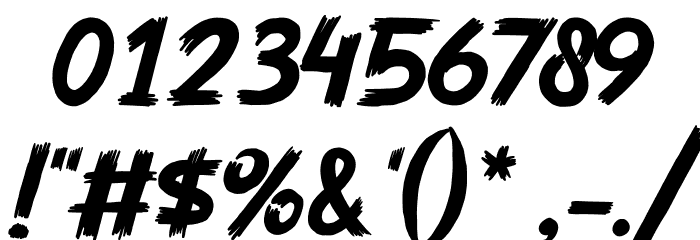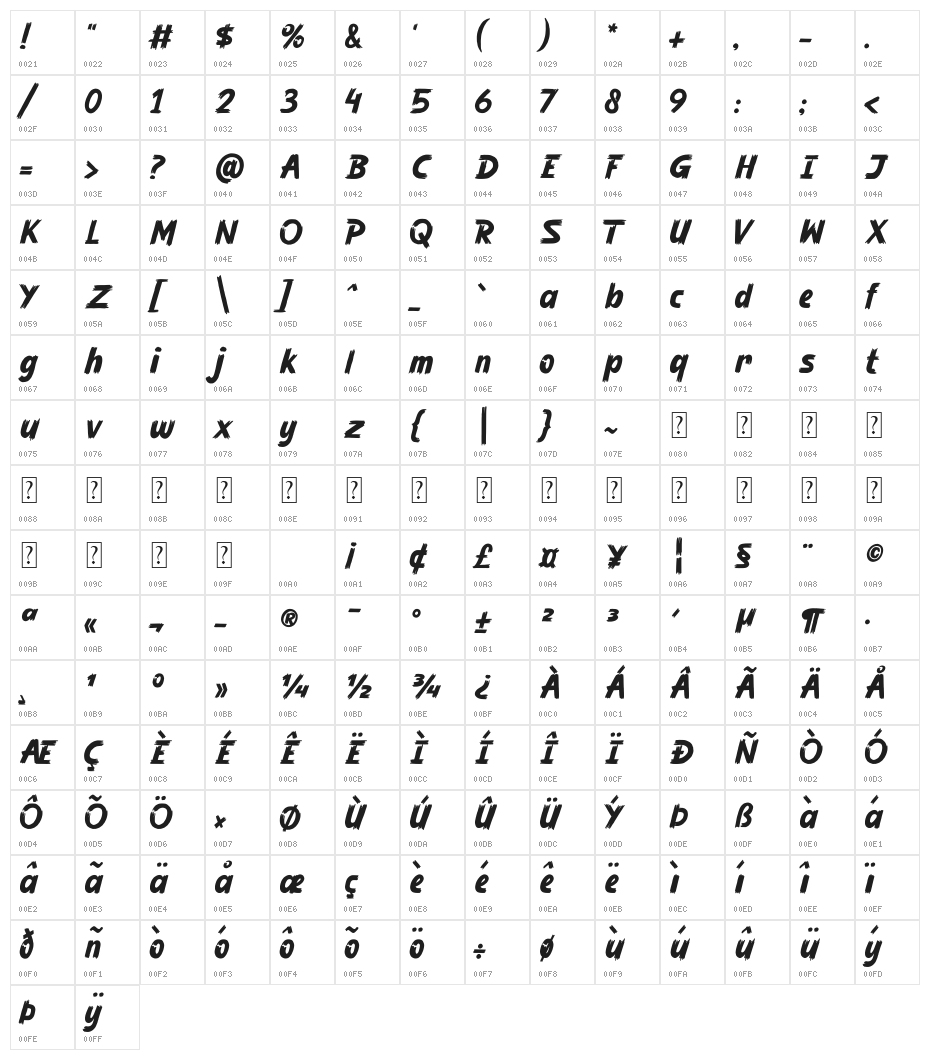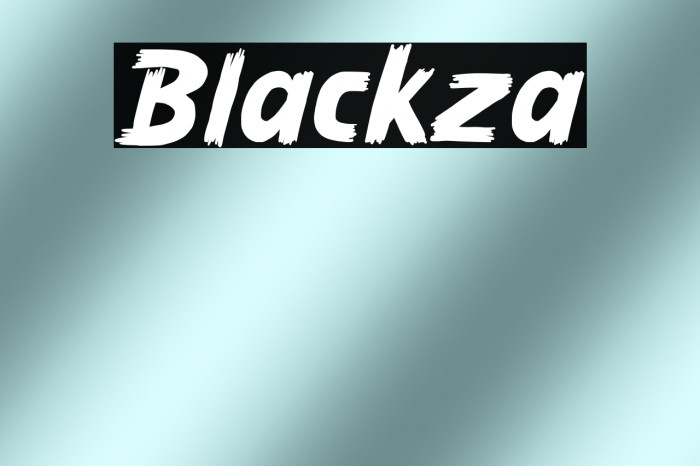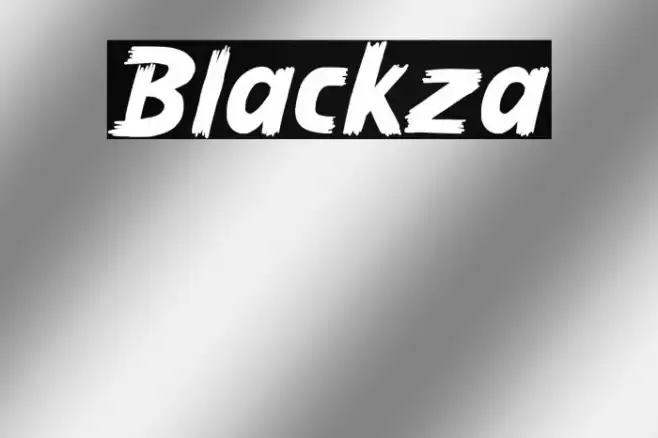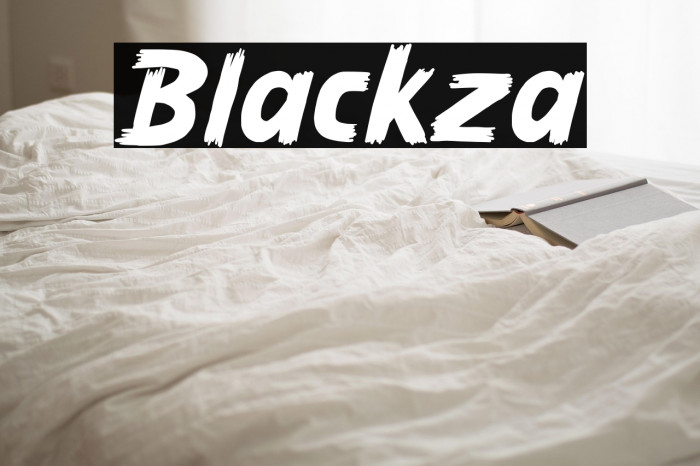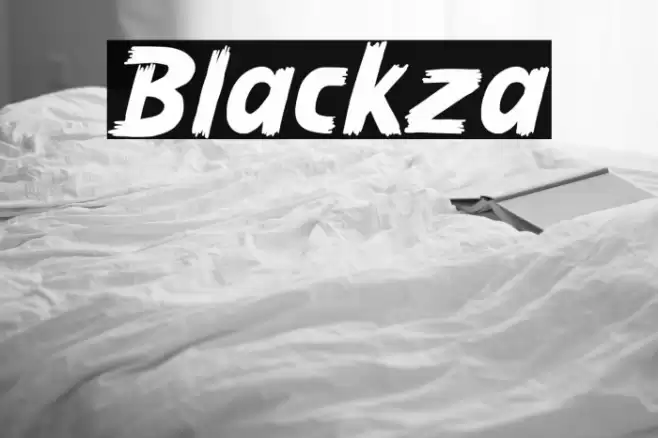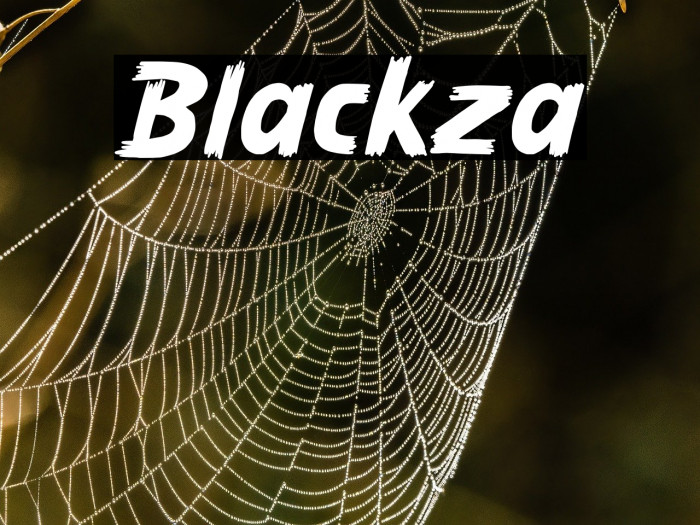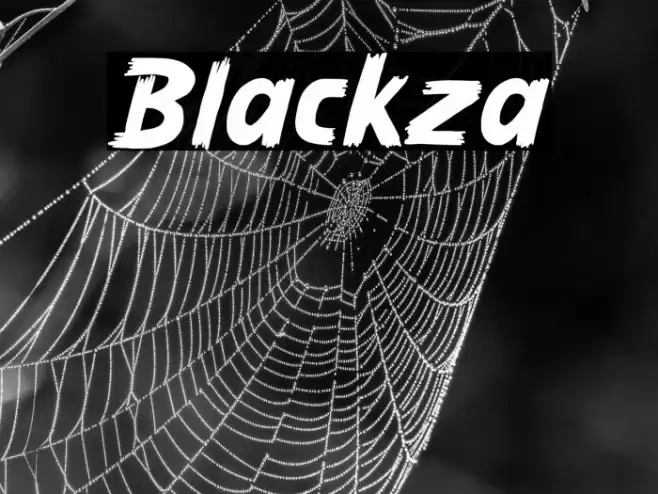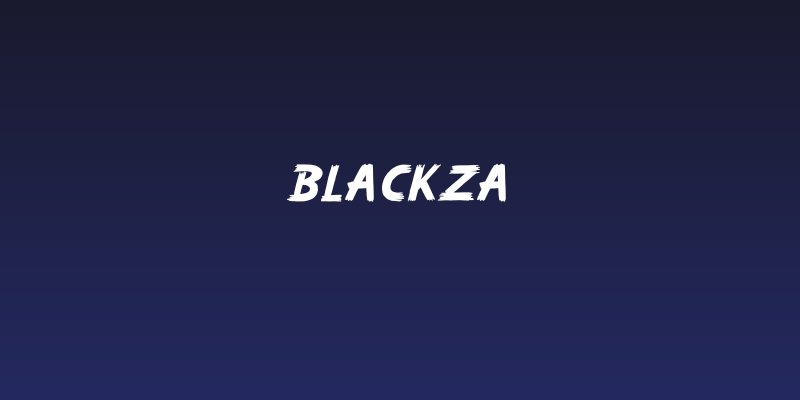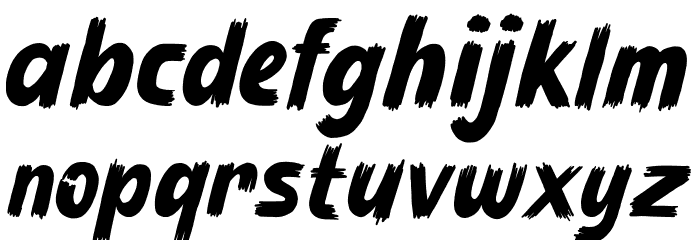
Blackza Font
Blackza Description
This font features a bold and dynamic brush style, characterized by its energetic strokes and rough edges. The letters have a hand-painted appearance, giving them a raw and expressive feel. The uppercase and lowercase letters maintain a consistent style, with each character exhibiting a sense of movement and fluidity. The numbers and special characters follow the same design, ensuring a cohesive look across all elements. This font is ideal for projects that require a strong visual impact and a touch of artistic flair.
| Proposed Projects | Ideal for posters, album covers, branding, and any project needing a bold, artistic touch. |